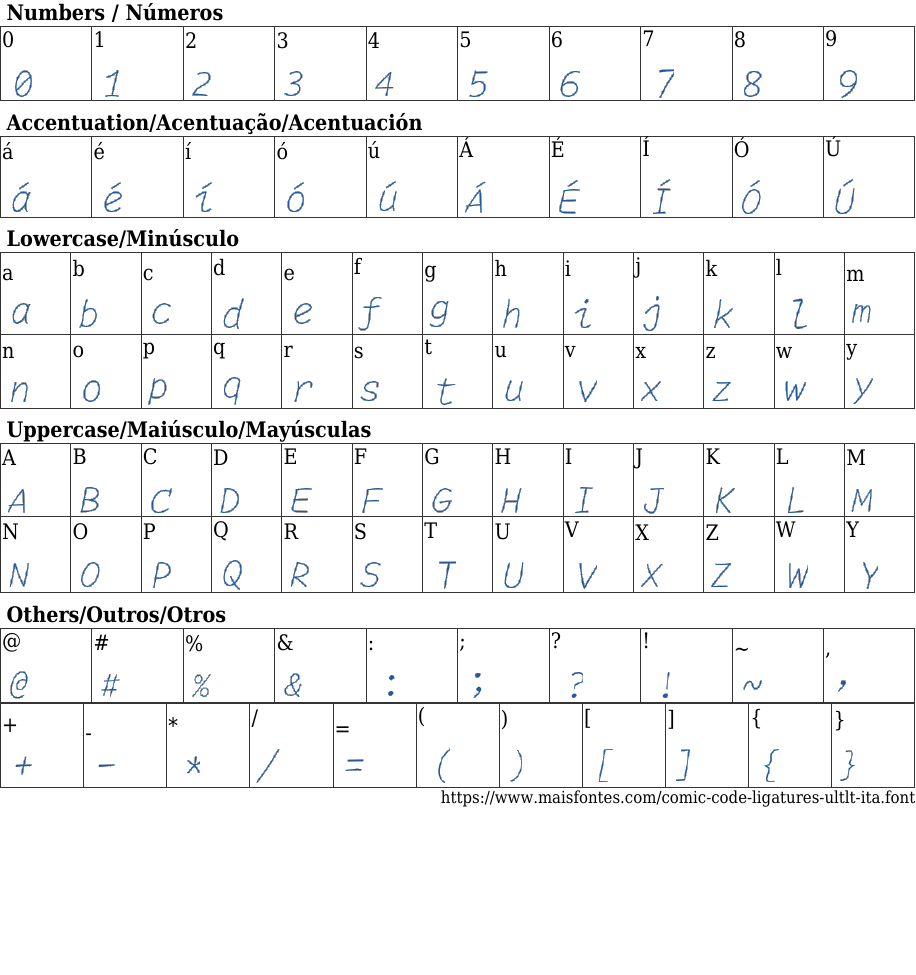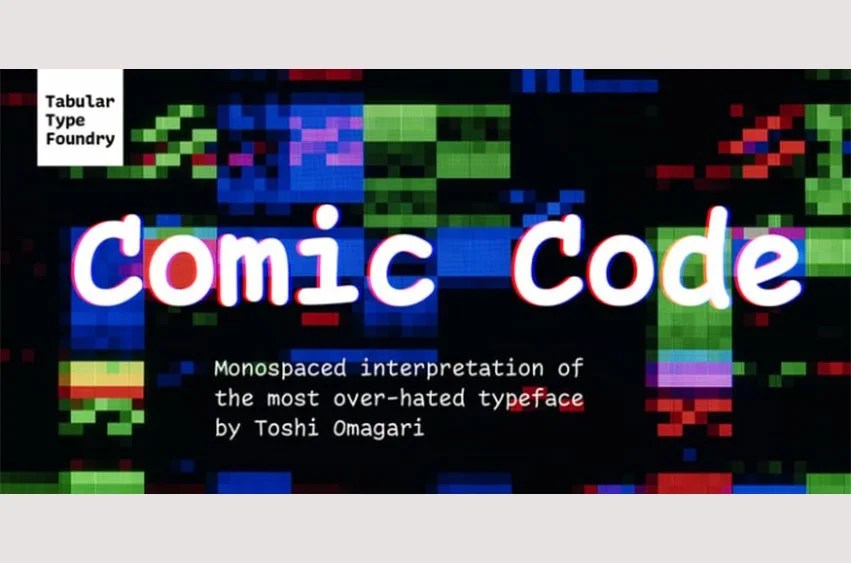
Comic Code Ligatures Font Free Download . Comic code only takes inspiration from comic sans and was drawn entirely from scratch, in case you are wondering. See how to download comic code ligatures ultralight for free! The standard family also offers ligatures as a discretionary option. Designed specifically for programming as the name. Comic code ligatures ultralight is the perfect font for all your fun. The standard family and comic code ligatures. Bold), 880 characters in total. Comic code font comes in two families: Comic code is a monospaced adaptation of the most infamous yet most popular casual font.
Designed specifically for programming as the name. Comic code ligatures ultralight is the perfect font for all your fun. The standard family also offers ligatures as a discretionary option. The standard family and comic code ligatures. Bold), 880 characters in total. See how to download comic code ligatures ultralight for free! Comic code only takes inspiration from comic sans and was drawn entirely from scratch, in case you are wondering. Comic code is a monospaced adaptation of the most infamous yet most popular casual font. Comic code font comes in two families: